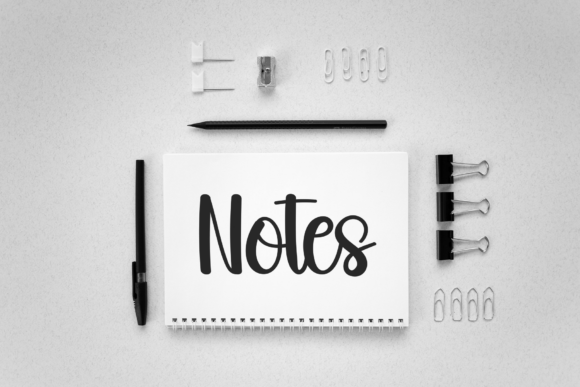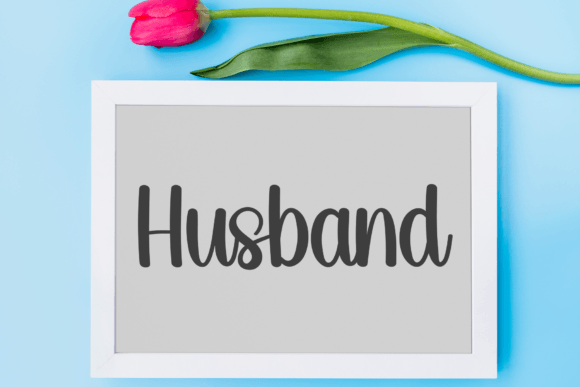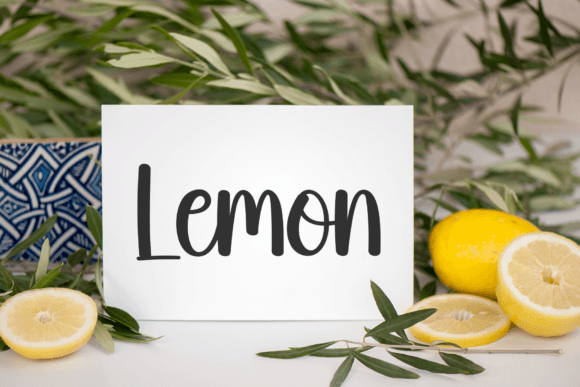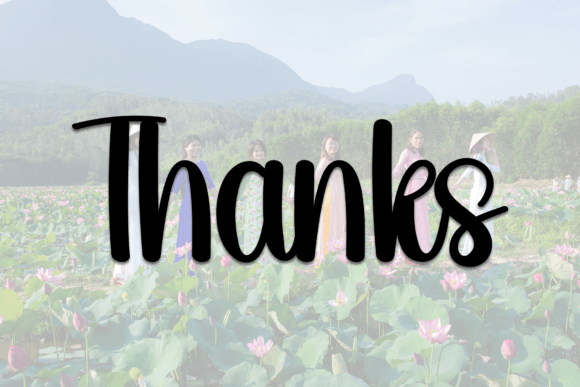
Introducing Birthday Vacation Font: The Perfect Handwritten Style for Your Designs
Are you looking for a font that can add a touch of elegance and casualness to your designs? Look no further than the Birthday Vacation Font. This beautiful handwritten font is designed to resemble marker-drawn text, giving it a relaxed and sporty feel that’s perfect for a wide range of design projects.
What is Birthday Vacation Font?
Birthday Vacation Font is a unique and stylish handwritten font that is perfect for designers and crafters who want to add a personal touch to their work. With its marker-drawn style, this font has a fun and casual feel that’s ideal for creating designs that are both elegant and laid-back.
Characteristics of Birthday Vacation Font
So, what makes Birthday Vacation Font so special? Here are just a few of its key characteristics:
- Handwritten style: Birthday Vacation Font has a beautiful, handwritten style that’s perfect for creating designs that feel personal and unique.
- Marker-drawn look: The font’s marker-drawn style gives it a relaxed and sporty feel that’s perfect for designs that need to be both elegant and casual.
- Luxurious and elegant: Despite its casual feel, Birthday Vacation Font has a luxurious and elegant quality that makes it perfect for high-end designs.
- Versatile: This font is incredibly versatile, making it suitable for a wide range of design projects, from branding and logos to wedding supplies and greeting cards.
Uses for Birthday Vacation Font
So, what can you use Birthday Vacation Font for? The possibilities are endless! Here are just a few ideas to get you started:
- Branding and logos: Use Birthday Vacation Font to create a unique and memorable brand identity that stands out from the crowd.
- Wedding supplies: This font is perfect for creating beautiful wedding stationery, including invitations, programs, and place cards.
- Greeting cards: Add a personal touch to your greeting cards with Birthday Vacation Font, which is perfect for birthdays, holidays, and other special occasions.
- Fashion and lookbooks: Use this font to create stylish and sophisticated fashion designs, including lookbooks, catalogs, and advertisements.
- Marketing promotions: Birthday Vacation Font is perfect for creating eye-catching marketing materials, including brochures, flyers, and social media graphics.
Why Choose Birthday Vacation Font?